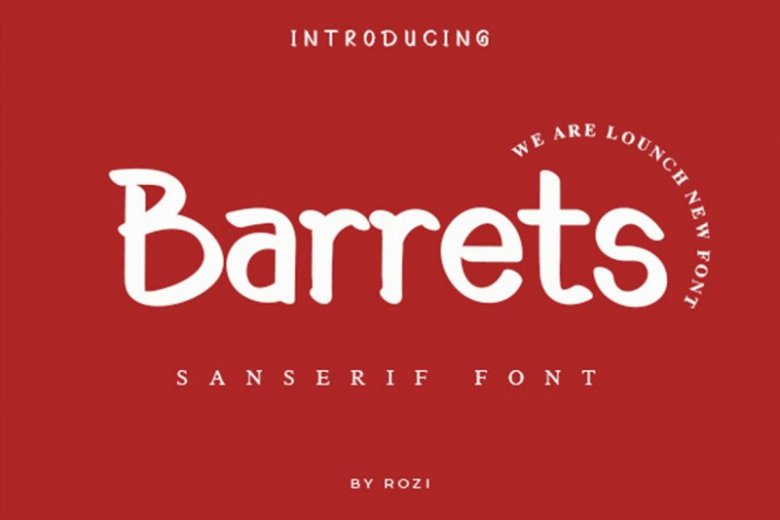
Barrets Font is a simple and casual sans serif font with an undeniably clean feel. With its neat and beautiful arrangement of letters, this font will look outstanding in both formal and non-formal designs.